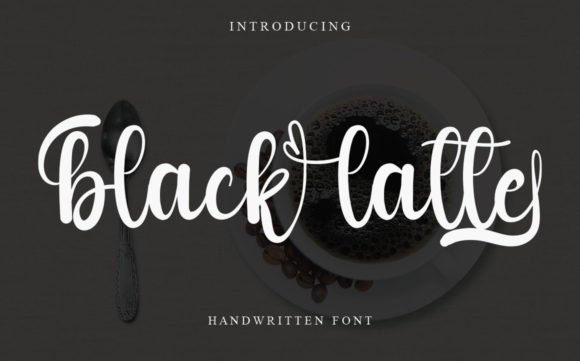
As a designer, have you ever stared at a blank page, searching for the perfect font to bring your creative vision to life? It’s that moment of pure inspiration when the words start flowing, and the ideas begin to take shape. And then, it hits you – the perfect font to capture the essence of your project. For many designers, that font is the Black Latte Font.
This beautiful and flowing handwritten font is more than just a pretty face; it’s a versatile tool designed to elevate any project. From wall displays and wedding invitations to social media posts and product packaging, the Black Latte Font is the perfect companion for any creative endeavor.
Black Latte Font Key Features
- Unique Characteristics: Black Latte Font features a distinctive, modern design with a sleek and sophisticated aesthetic, making it ideal for use in luxury branding and high-end design applications.
Designer Review: Black Latte Font
Overall, I’d say the Black Latte Font is a decent addition to any designer’s toolkit. Here are a few things it does well:
- ✨ The font is highly legible, even at small font sizes, making it suitable for body text and captions.
- ✨ The font has a strong, modern aesthetic that’s perfect for contemporary designs and branding.
- ✨ The font family is quite extensive, with multiple weights and styles to choose from.
- ⚠️ The font may be too bold and overpowering for more subtle designs, so use it sparingly.
- ⚠️ Some characters, such as the “g” and “y”, may not be perfectly formed, which can affect readability.
Overall, I’d give the Black Latte Font 3.5 out of 5 stars. It’s a solid choice for designers looking for a modern, legible font, but it may not be the best fit for every project. With a little creativity and restraint, however, it can be a valuable addition to your font library.
Black Latte Font Guide
For best results, use Black Latte Font in bold or italic styles to create a striking effect.
For a dramatic effect, use Black Latte Font in combination with bold lines or shapes.
For a modern look, use Black Latte Font in combination with white or light-colored backgrounds.
Black Latte Font is ideal for:
- Creating dramatic titles and headings.
- Designing modern and minimalist logos.
- Adding a touch of sophistication to business cards and brochures.
Remember to use Black Latte Font in moderation to avoid overwhelming your design.